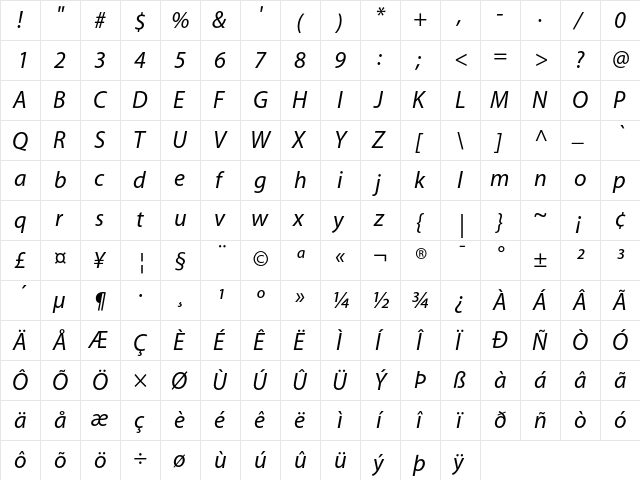
Adobe Corporate ID Myriad Regular Italic
Design Context for Adobe Corporate ID Typeface
Adobe Corporate ID is a composed and adaptable typeface that performs quietly and consistently across a wide range of design contexts. Its italic angle brings a sense of urgency and motion to the letterforms.
Pro Tip: Try Adobe Corporate ID for annotation and caption copy alongside an upright companion — the contrast in angle creates a dynamic but ordered typographic system.